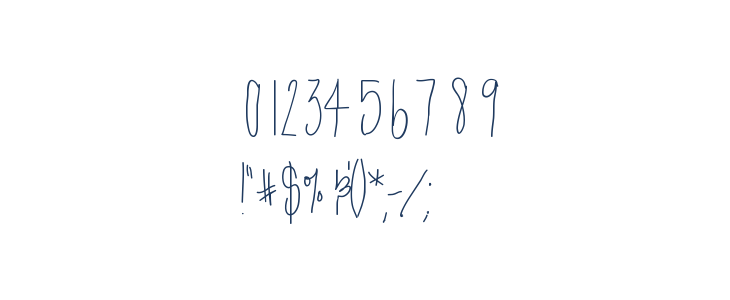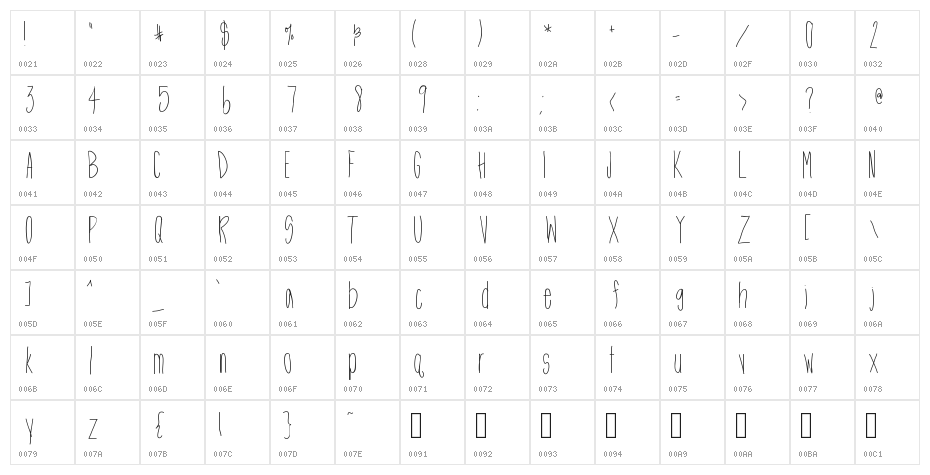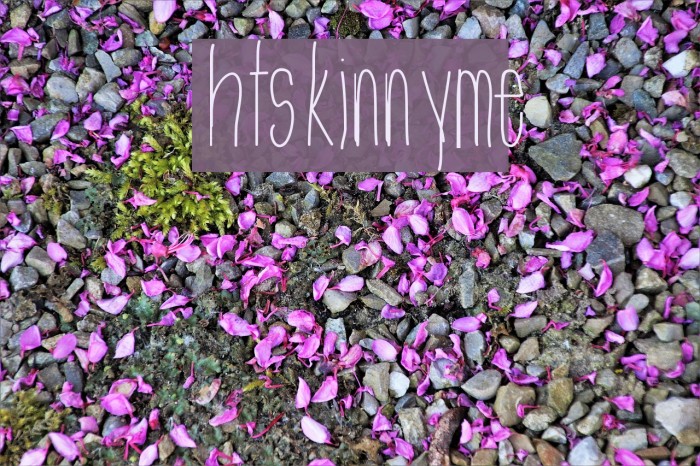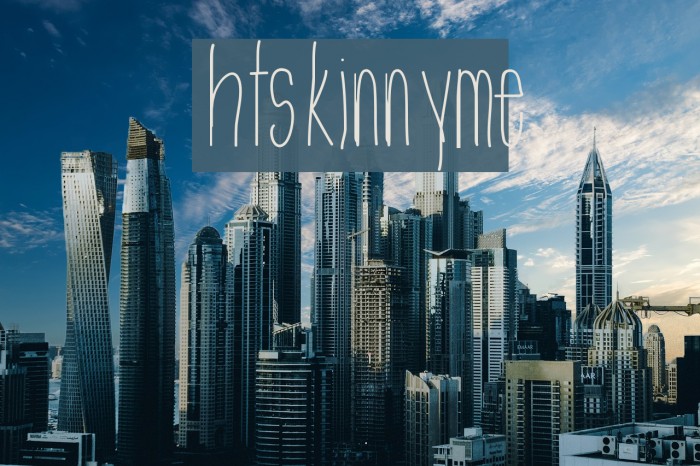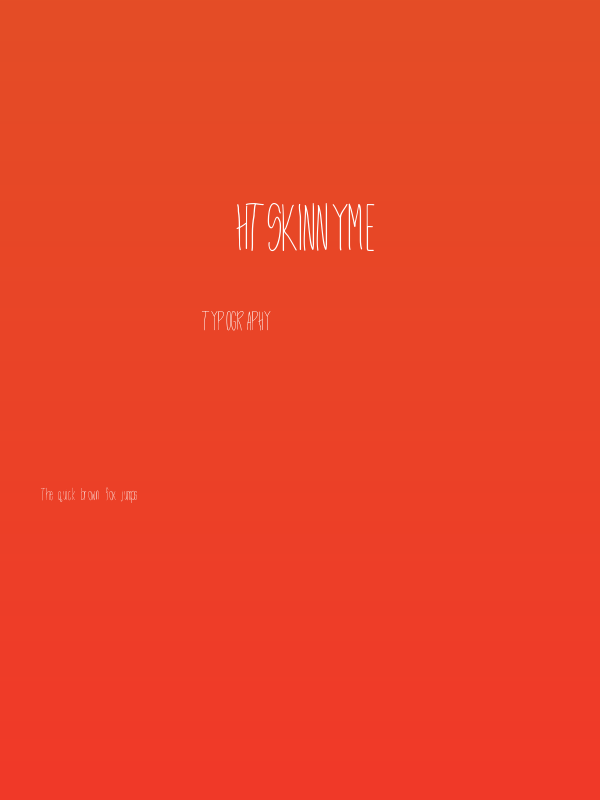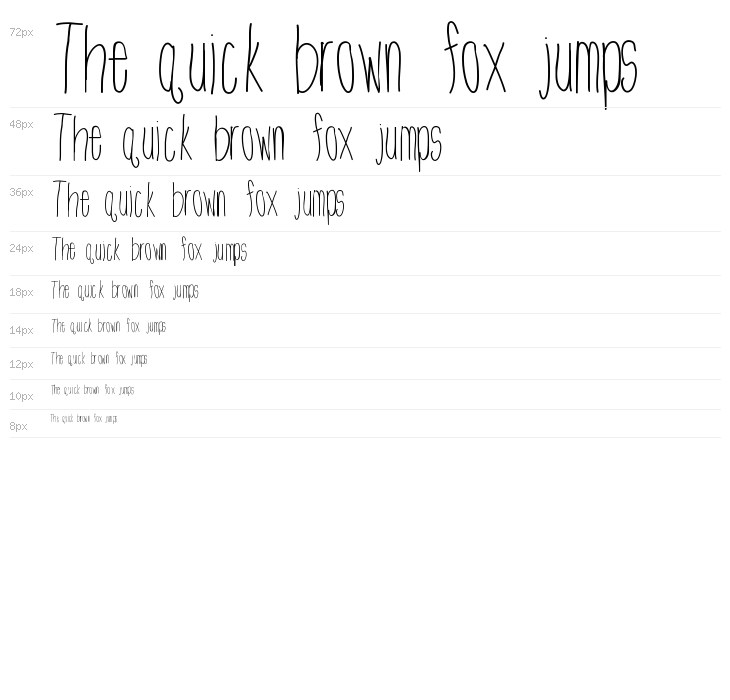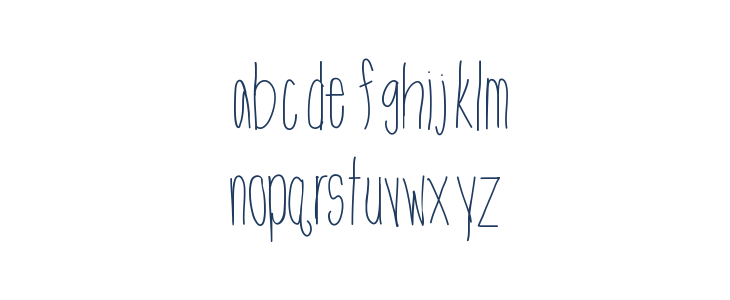
htskinnyme Font
htskinnyme Description
This font features a playful and whimsical handwritten style, characterized by its tall, narrow letters and irregular strokes. The uppercase and lowercase letters maintain a consistent height, contributing to a cohesive appearance. The numbers and special characters follow the same slender and elongated form, enhancing the font's unique aesthetic. The strokes are uneven, adding a casual and informal touch, making it suitable for creative and artistic projects. The overall design is light and airy, with a sense of movement and fluidity, perfect for conveying a friendly and approachable tone.
| Use Case | Headlines, Creative projects |
| Proposed Projects | Ideal for greeting cards, children's books, creative posters, and personal branding. |